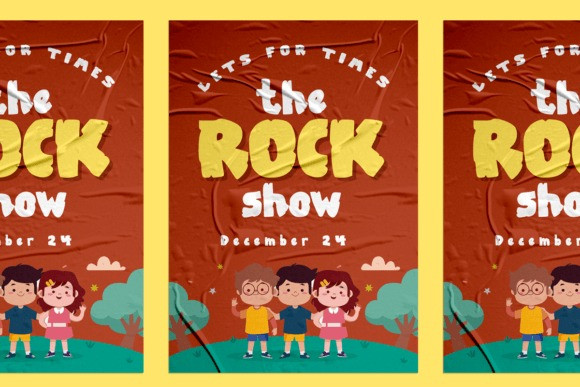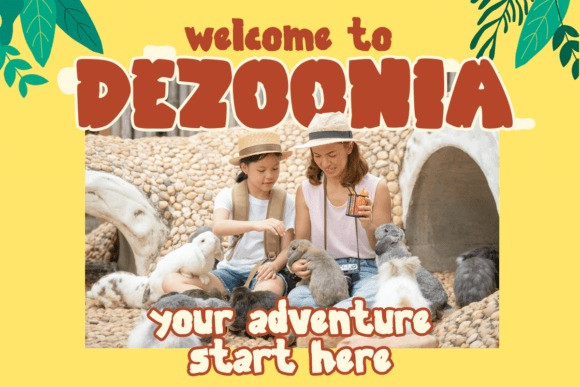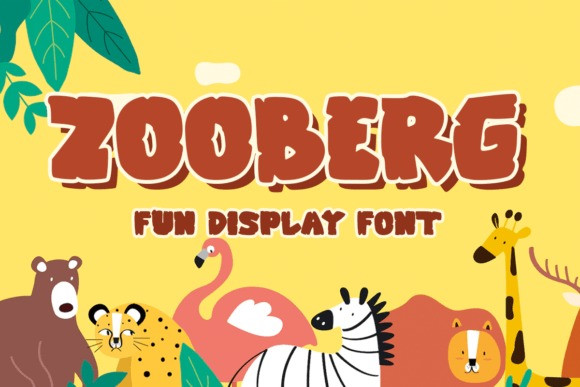
Zooberg Font
Zooberg Display Font is a fun display font with a unique cartoon style. This font is perfect for your creative projects such as Games, Logos, T-shirts, Branding, Titles, Book Covers, Youtube Thumbnails, and many other creative ideas!